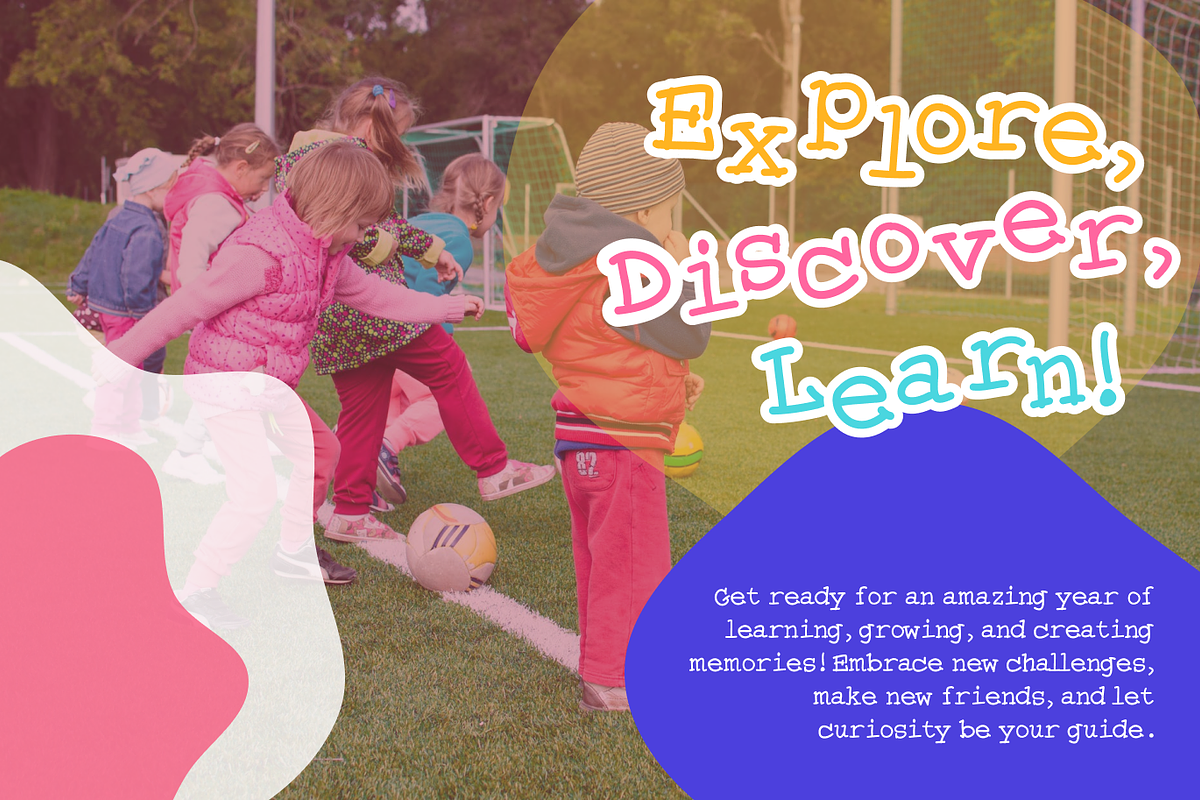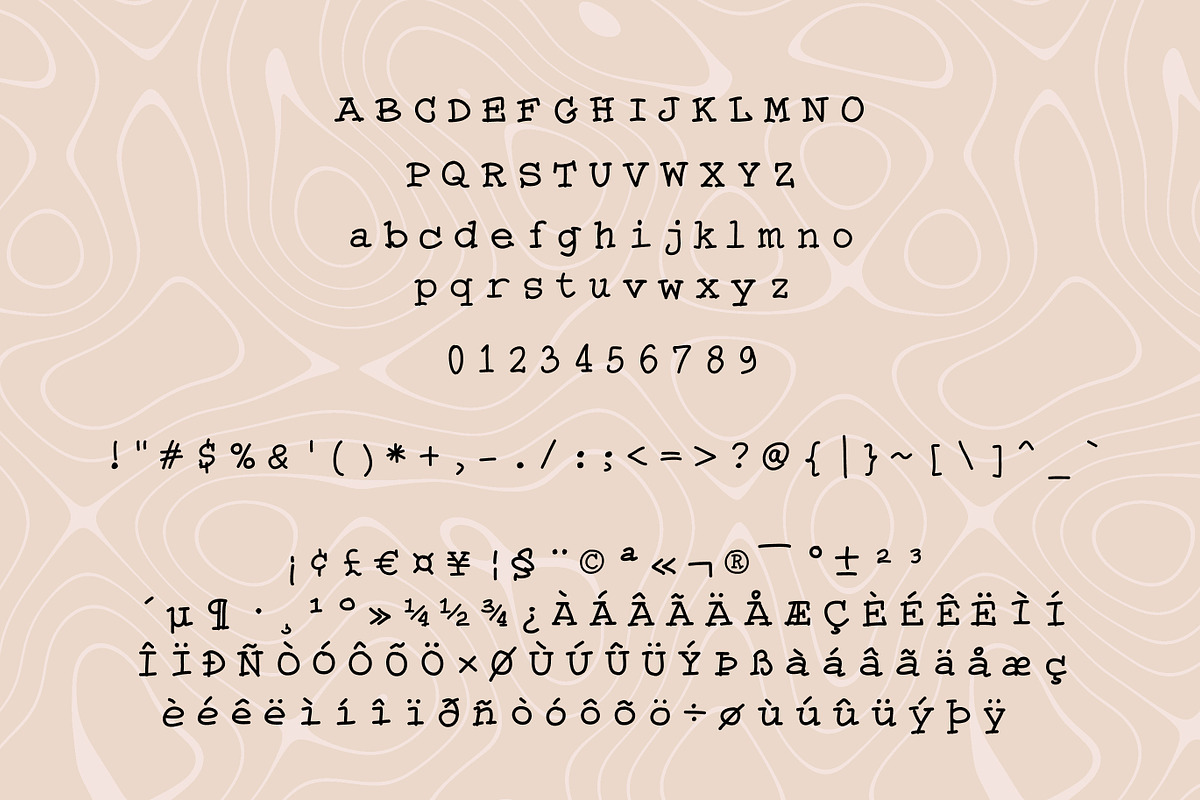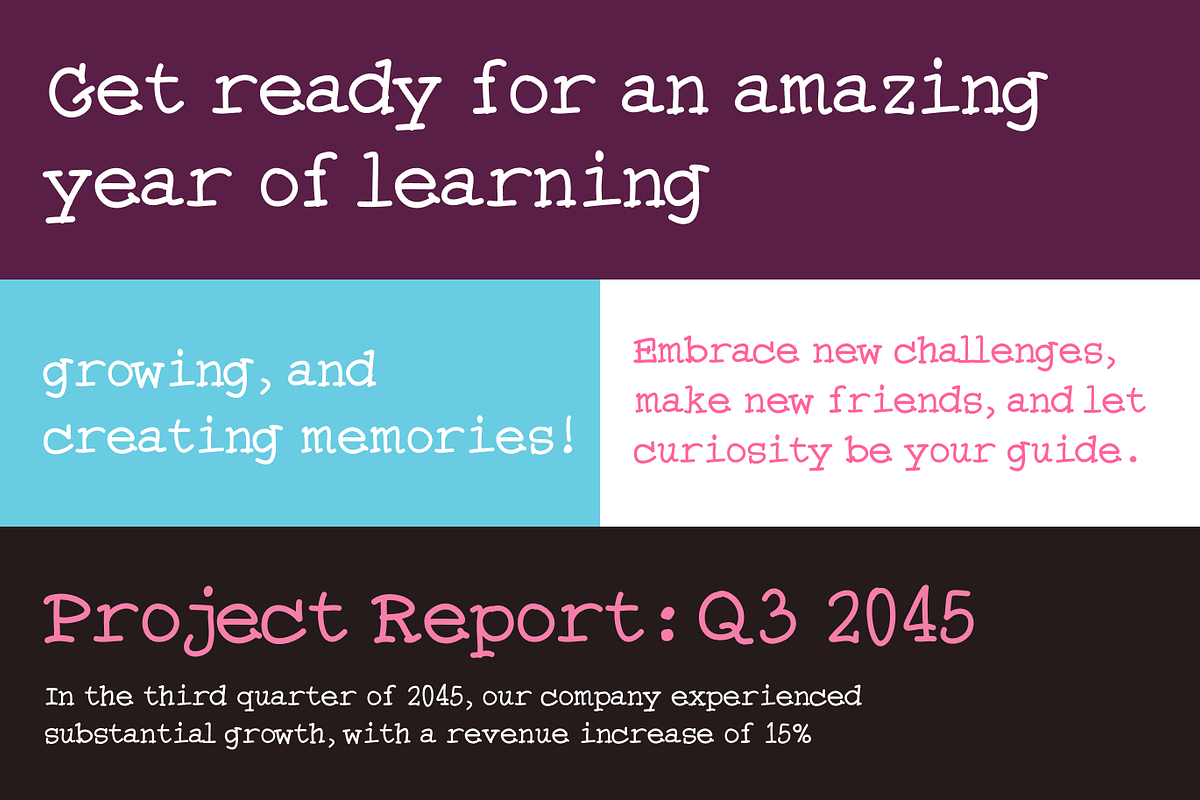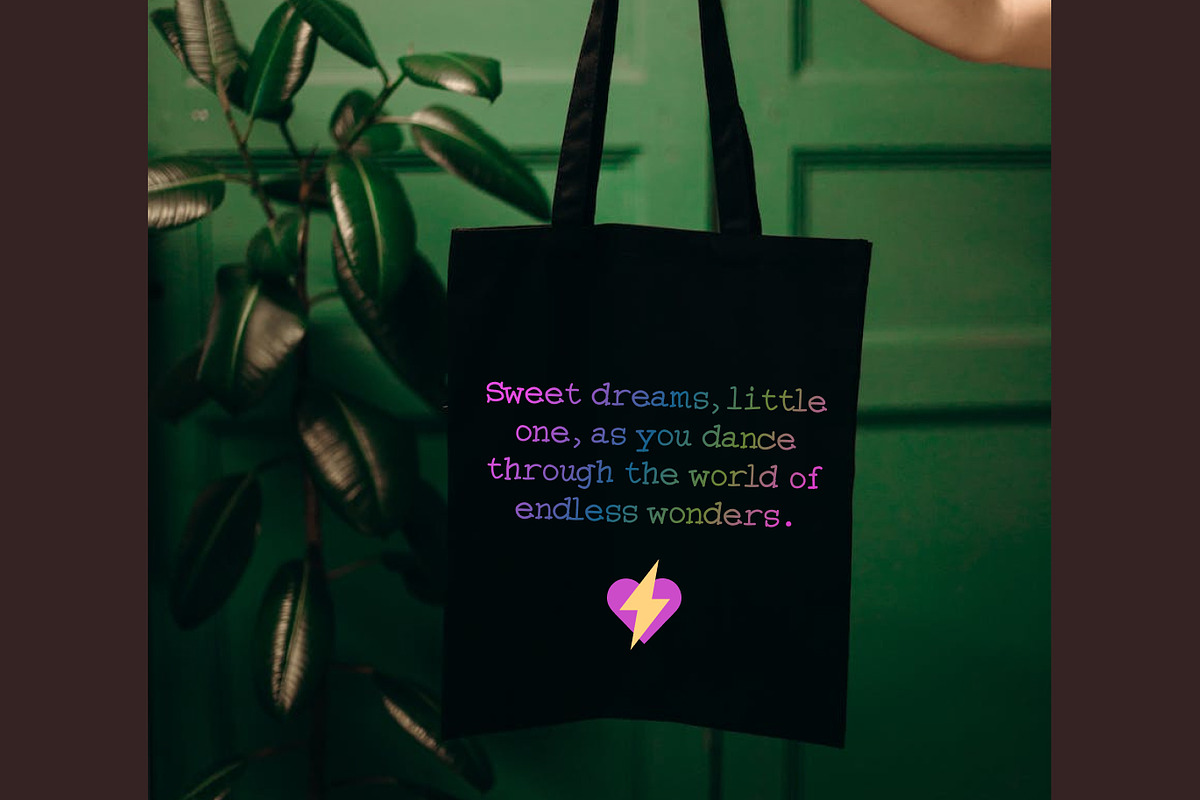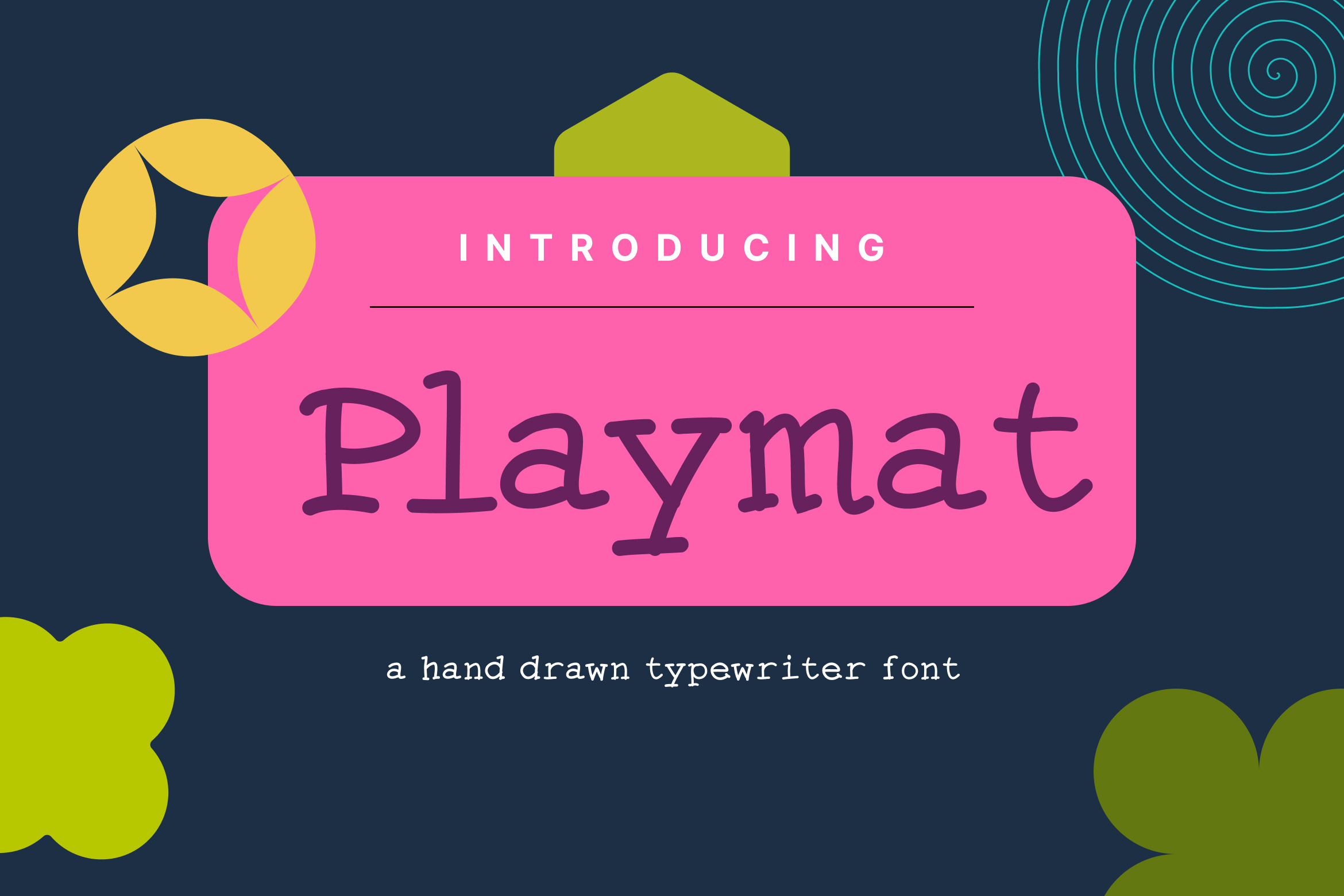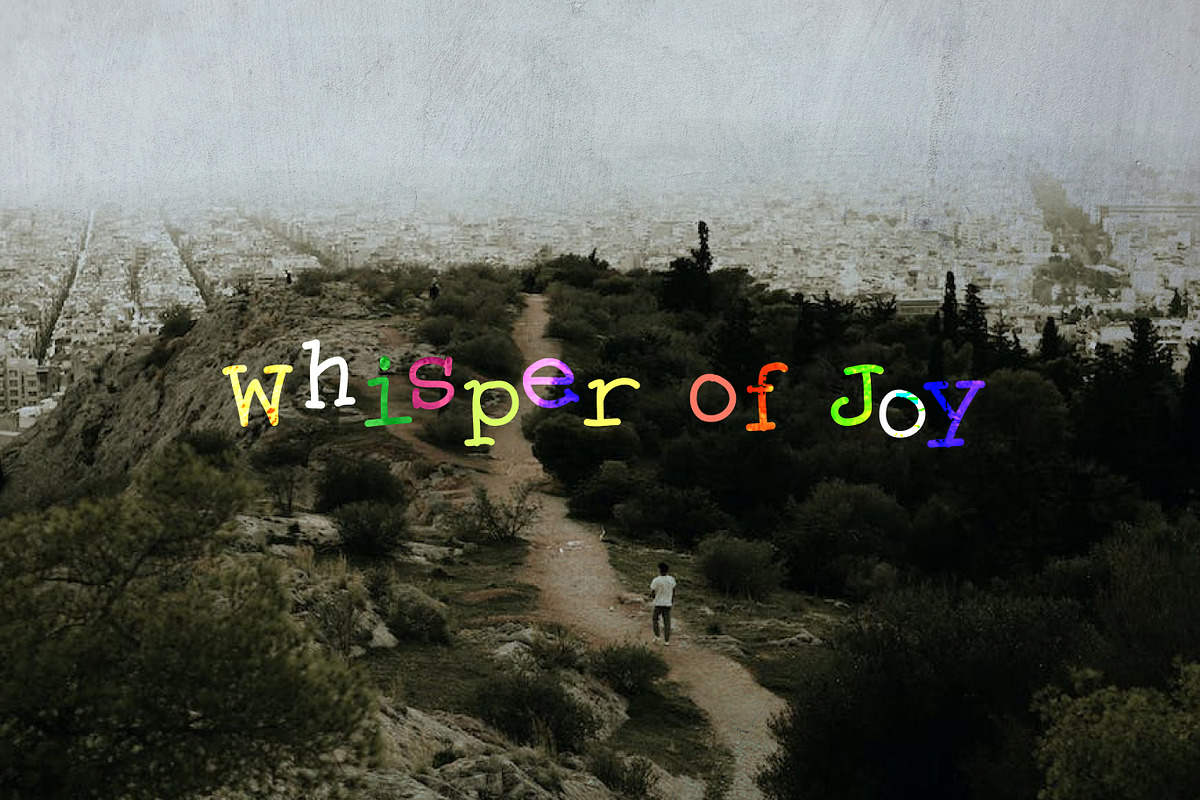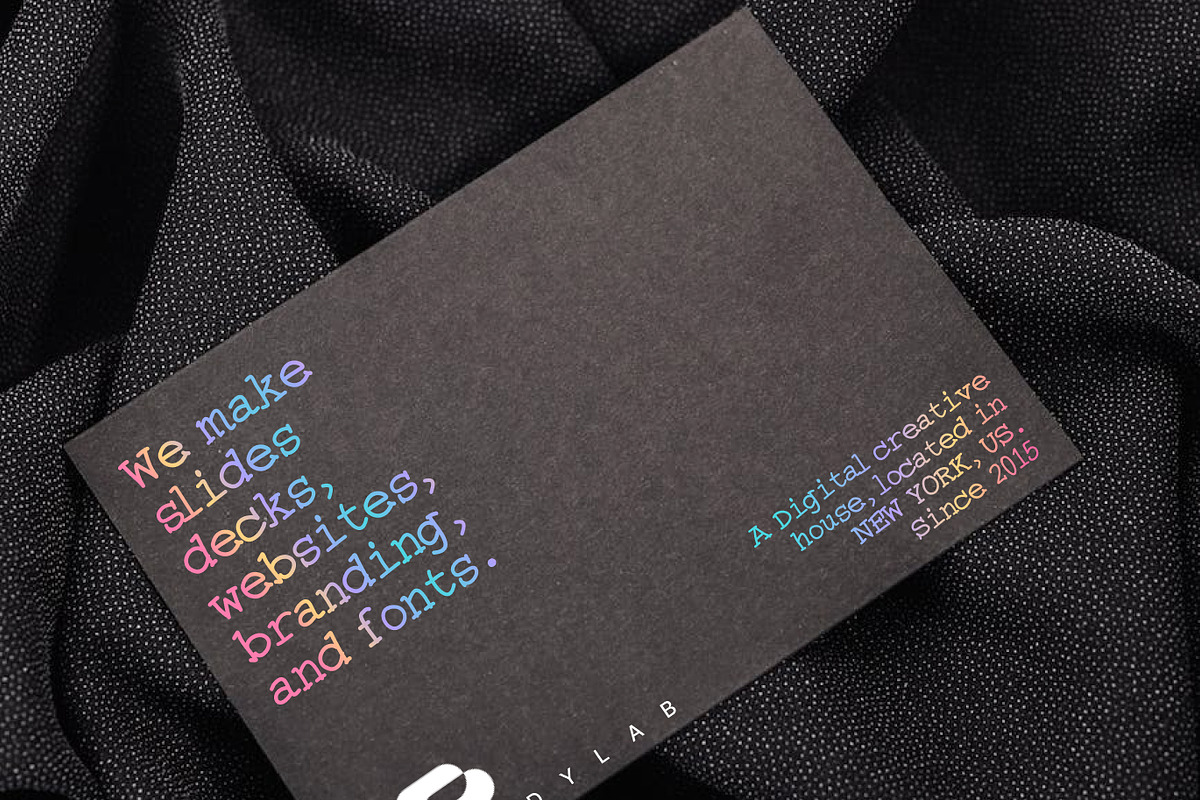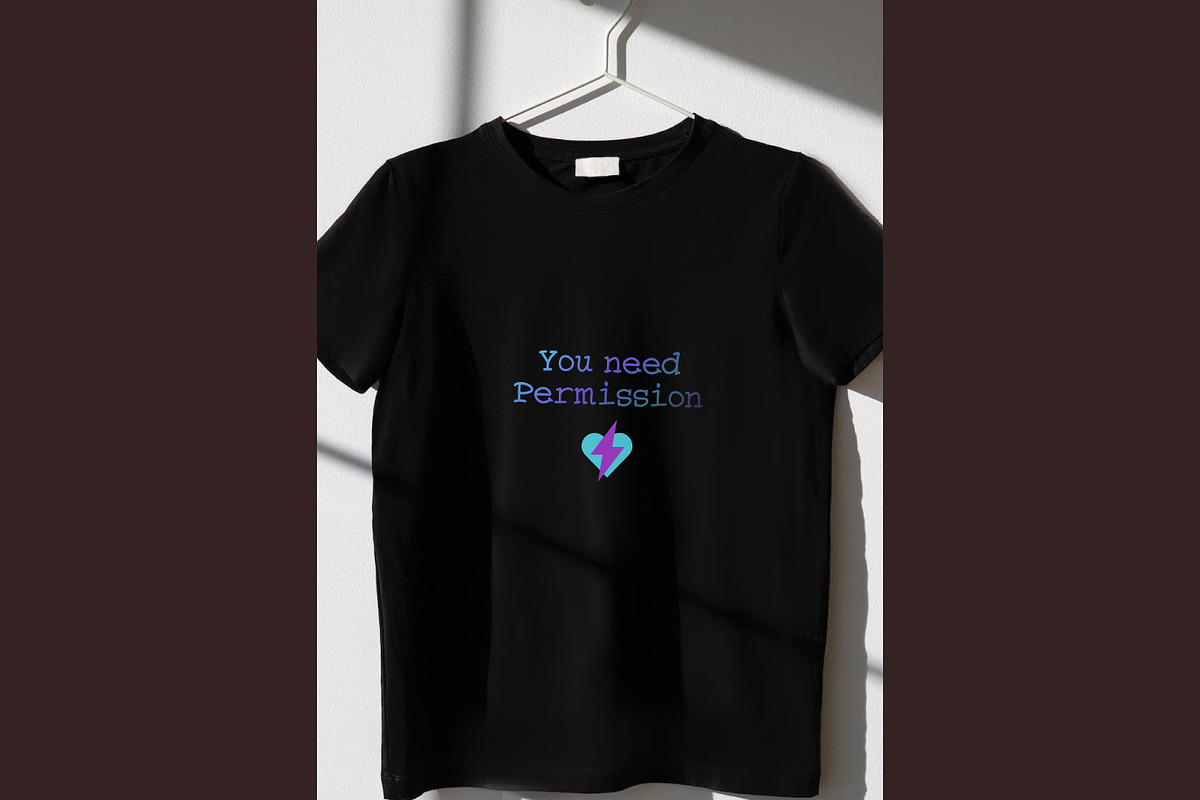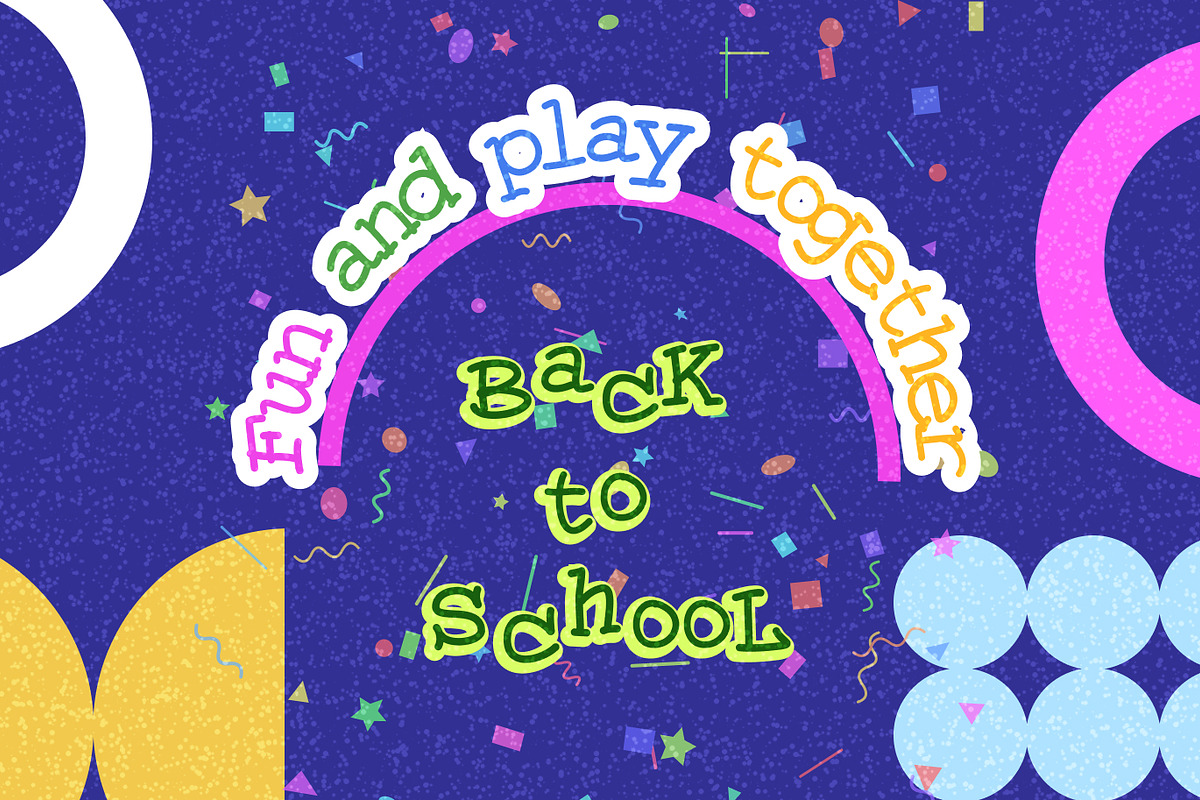
Playmat - hand-drawn typewriter font
Playmat is a hand-drawn typewriter font that is suitable for any products and promotional kit for your business, such as fashion, branding, merchandise, t-shirts, posters, flyers, social media kits, business cards, stickers, labels, quote posts, food packaging, and any other design needs.
This font has character images that can be depicted as fun, kids, school, young, teen, foodies, typewriter style, doodle, playful, energic, healthy, vintage, etc.
Basic Latin A-Z and a-z
Latin Accent
Number and Punctuation Symbols